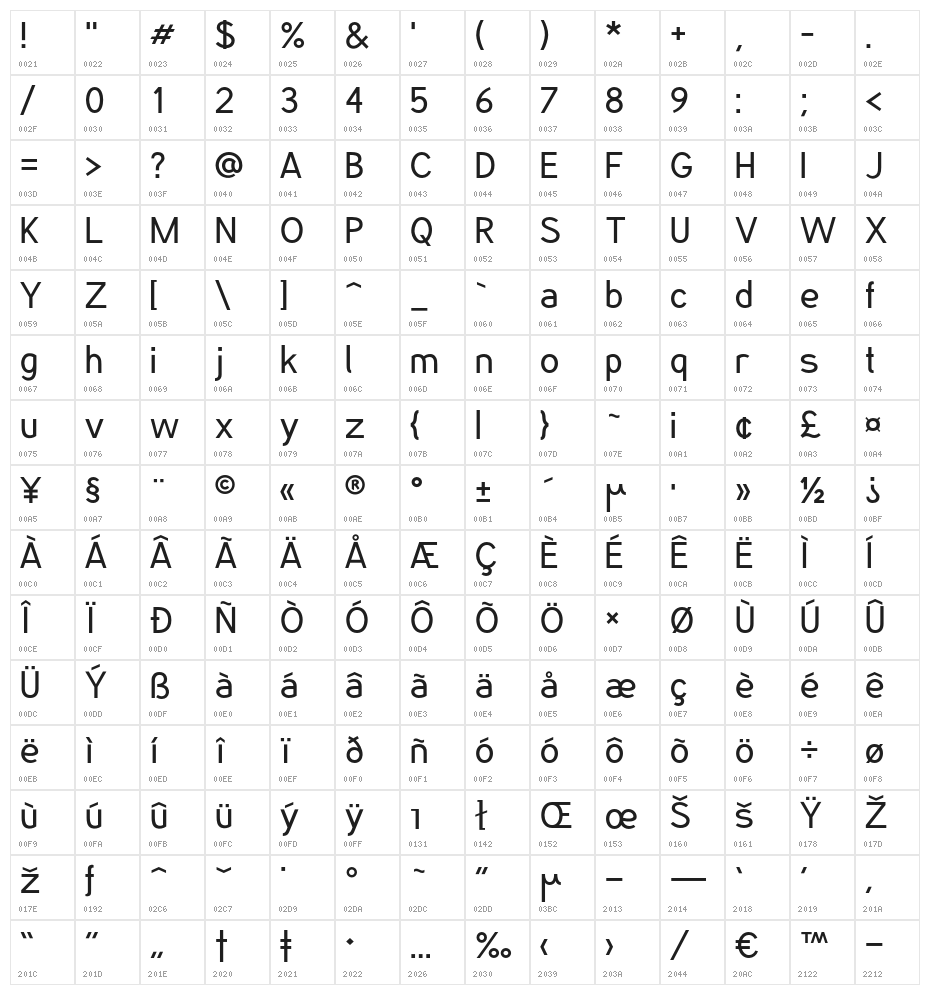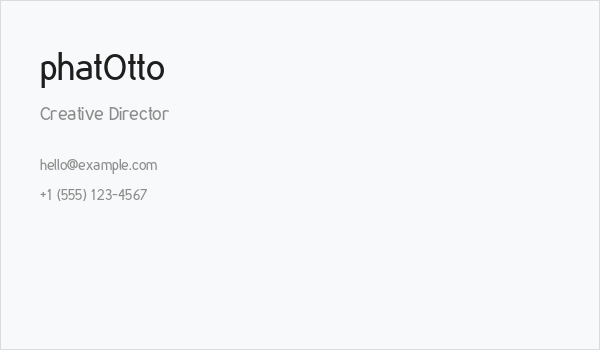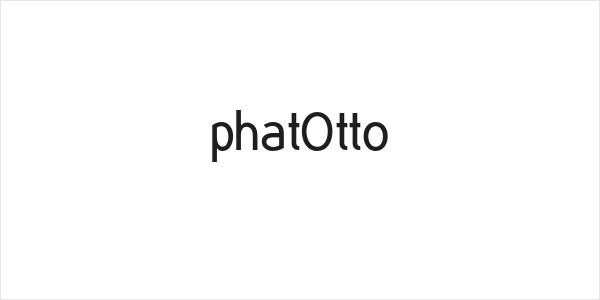
phatOtto Font
phatOtto Description
This font features a clean and modern sans-serif style with uniform stroke widths, creating a balanced and professional appearance. The characters are well-proportioned, with a slight geometric influence that adds a contemporary touch. The uppercase letters are bold and assertive, while the lowercase letters maintain a friendly and approachable feel. The numerals are clear and easy to read, making them suitable for various applications. Special characters are included, offering versatility for different design needs. Overall, this font exudes simplicity and elegance, making it ideal for both digital and print media.
Proposed ProjectsIdeal for branding, web design, advertising, and editorial layouts.